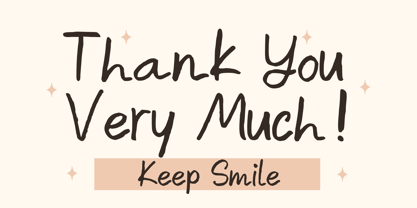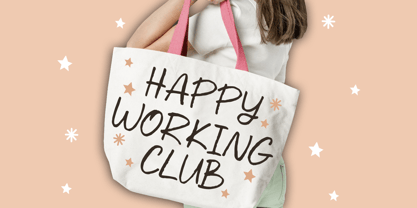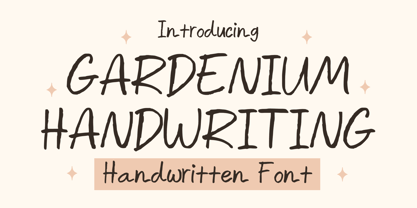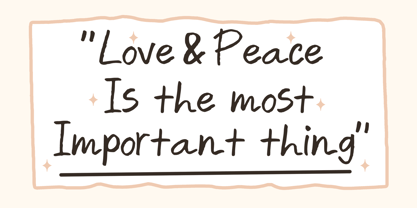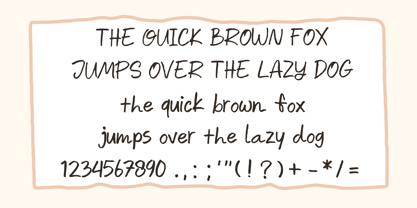
Gardenium Handwriting
by Mvmet
The Gardenium Handwriting Font Family was designed by Gabriel Valentinus and published by Mvmet. Gardenium Handwriting contains 1 styles. More about this family
Introducing Gardenium Handwriting, a whimsically spontaneous, spirited, and beautiful hand-lettered font. This versatile typeface serves as a secret weapon that elevates ordinary design projects into extraordinary masterpieces. Perfect for a wide range of applications, Gardenium Handwriting enhances everything from decals and t-shirts to captivating logos. It can transform magazine and book covers into stunning works of art, while also bringing life to comics and cartoon illustrations. Trust Gardenium Handwriting to add a dash of cool to each stroke, instantly lifting your designs to new heights and making them stand out in any creative project.
Designers: Gabriel Valentinus
Foundry: Mvmet